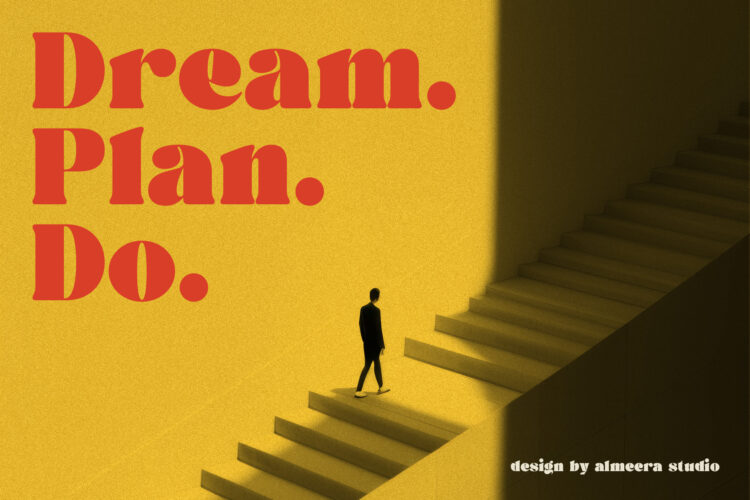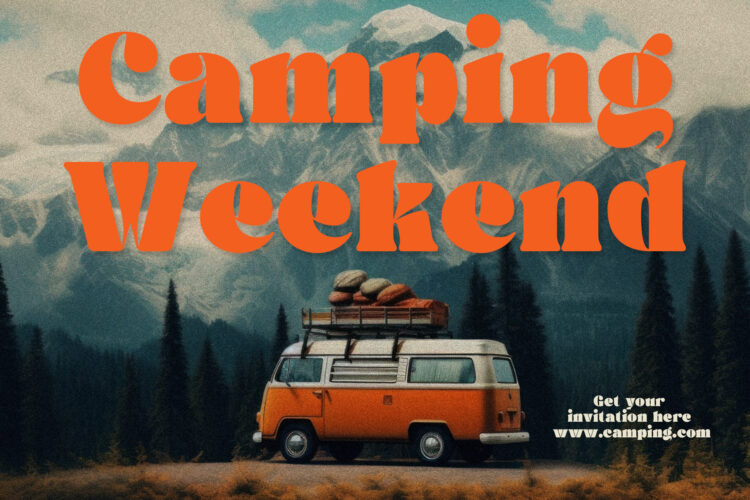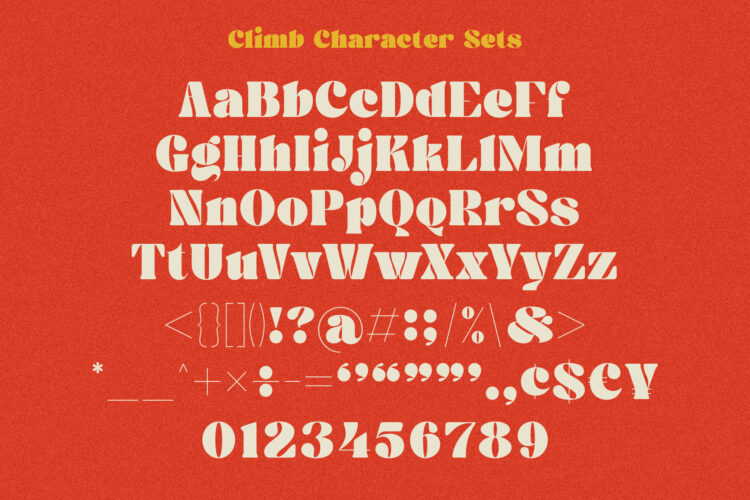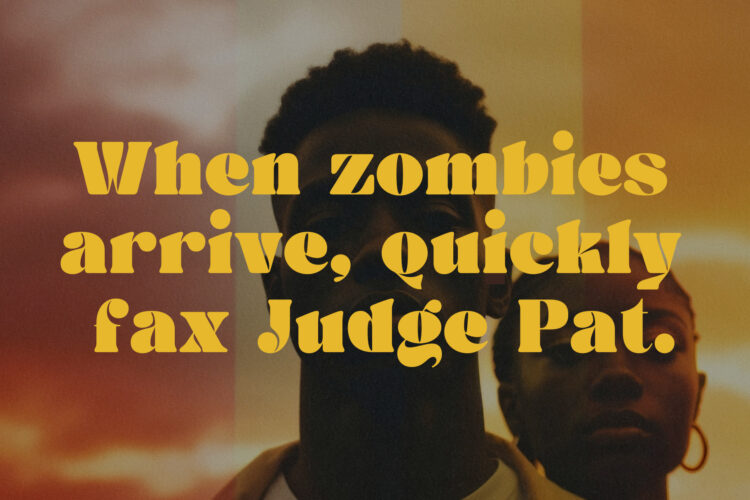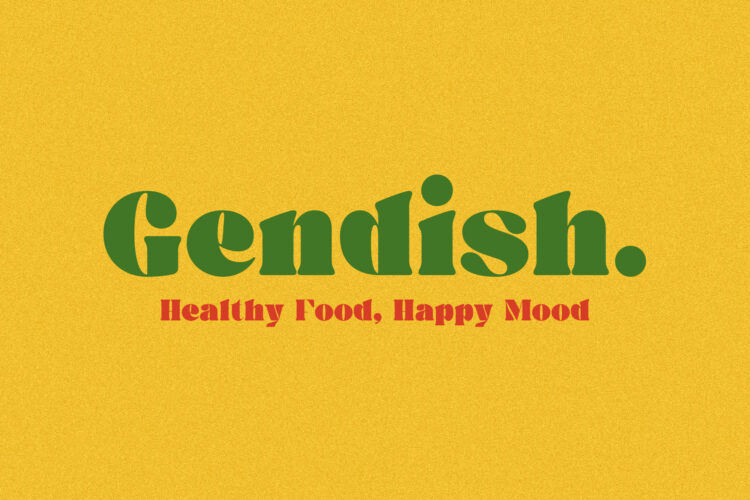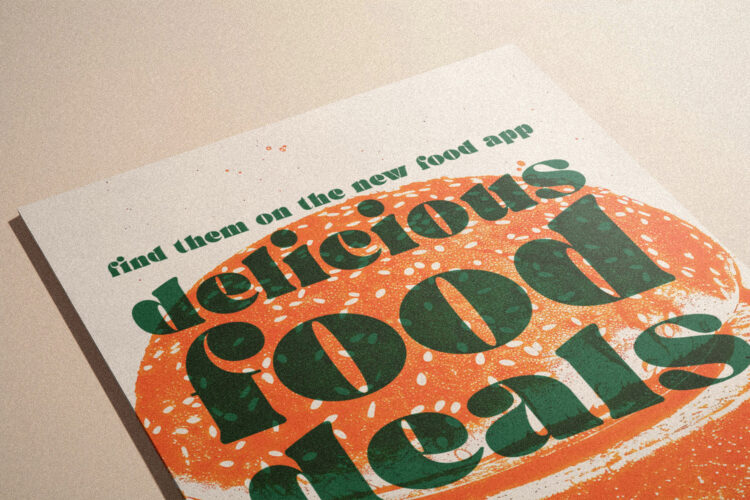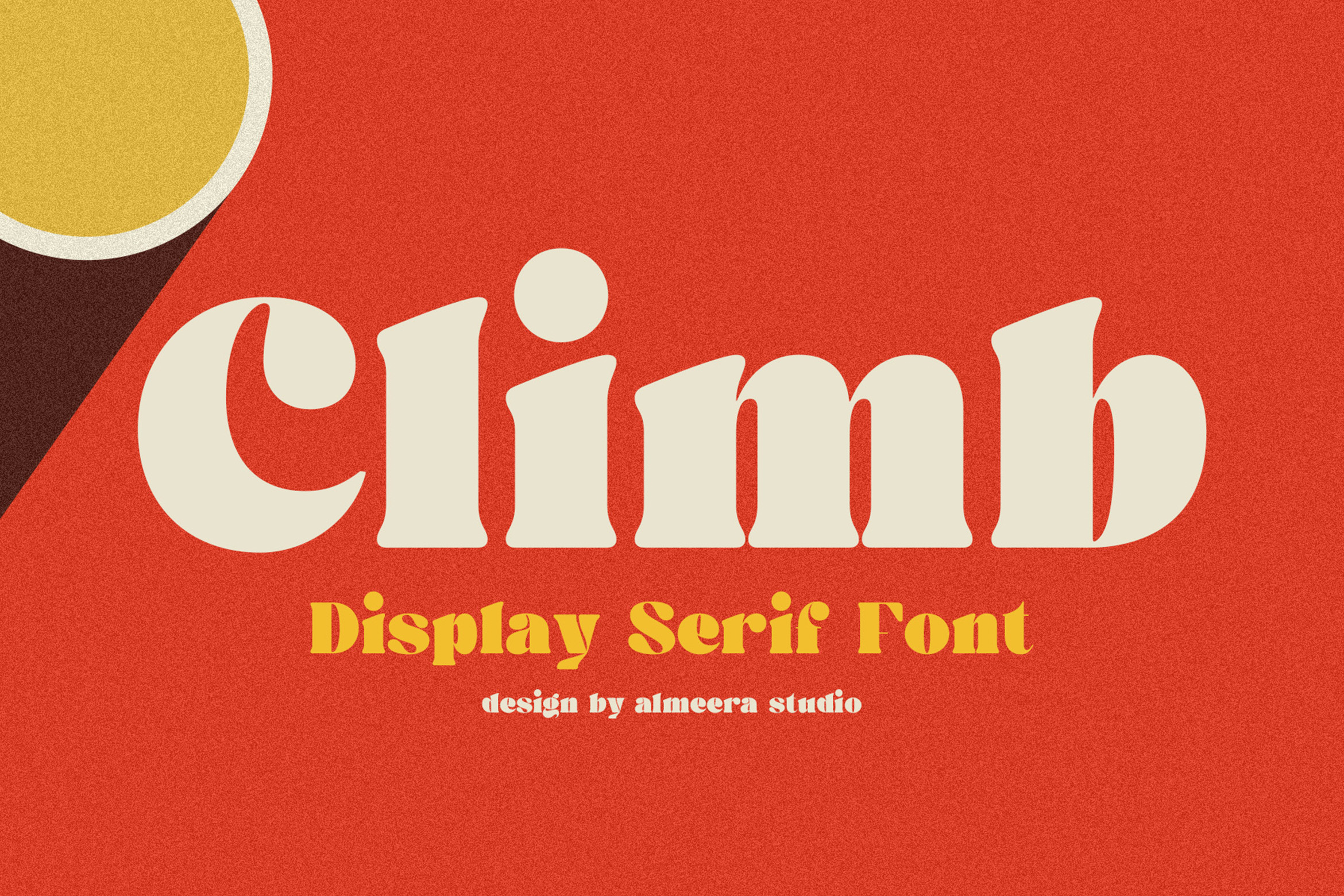
Introducing Climb – Display serif font. Climb is a display serif font, This type of font is very suitable for your various needs such as branding projects, logos, social media posts, advertisements, labels, product packaging, photography, wedding designs, watermarks, invitation product designs, stationery, and any project.